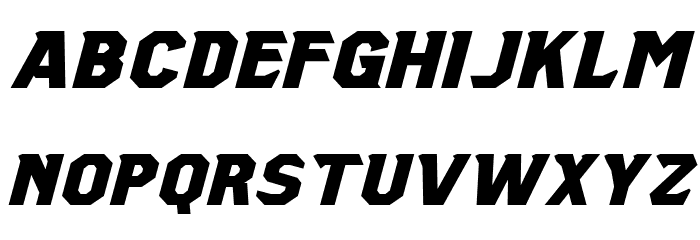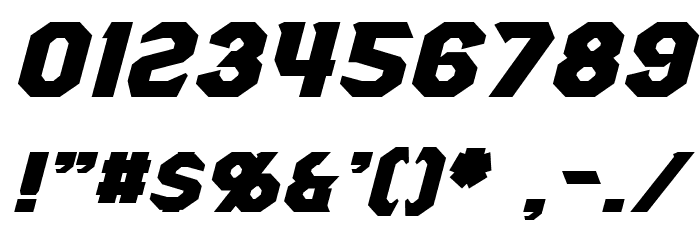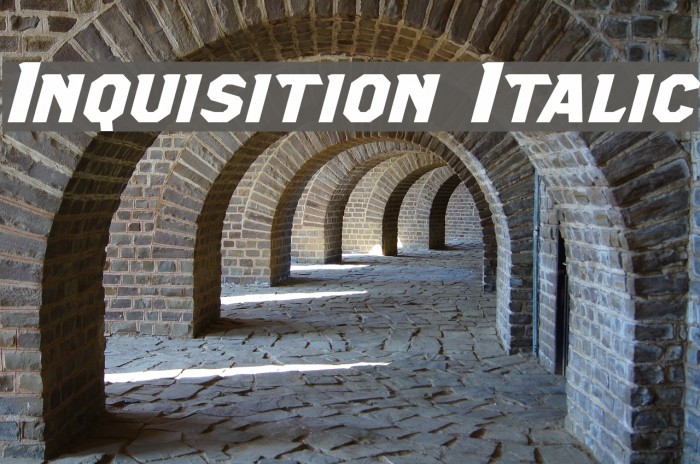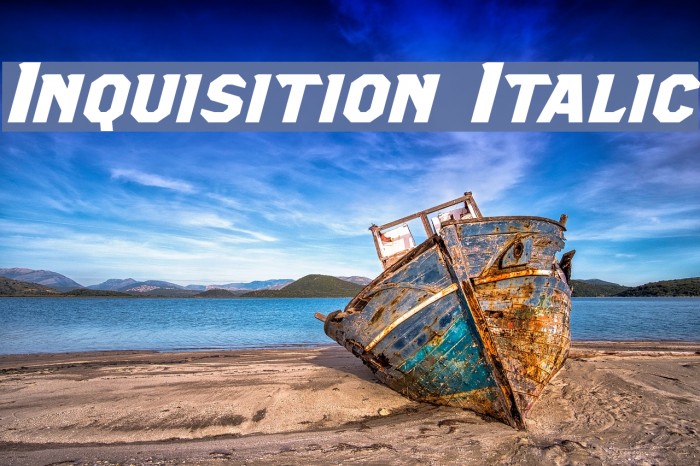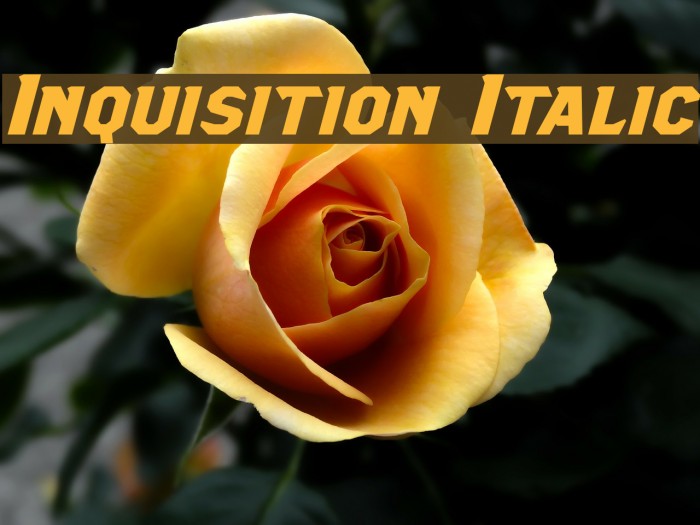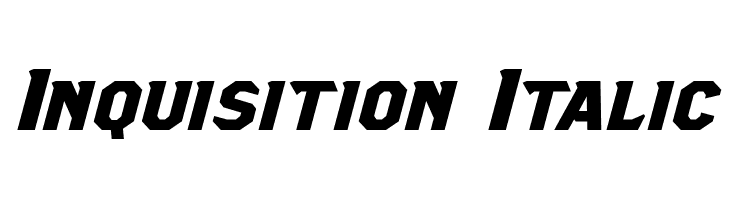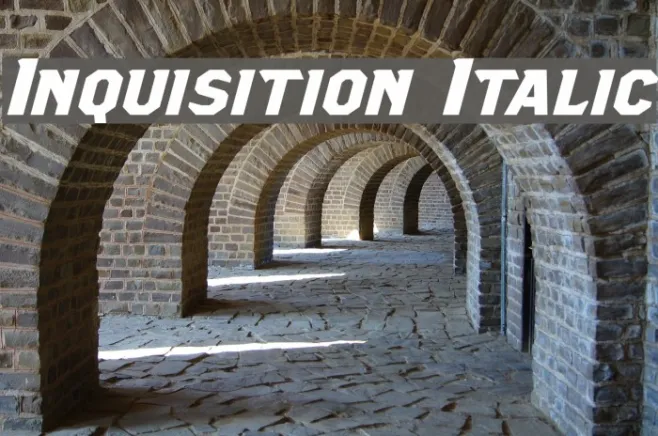
Inquisition Italic Font
This font features a bold and dynamic design with a strong italic slant, giving it a sense of motion and energy. The characters are robust and angular, with sharp edges and a geometric structure that adds a modern and assertive feel. The uppercase and lowercase letters maintain a consistent style, while the numerals and special characters complement the overall aesthetic. The font's boldness and unique style make it suitable for impactful headlines and attention-grabbing designs.
A bold, italic font with angular, geometric characters and a dynamic style.
- Proposed Projects: Ideal for sports branding, dynamic posters, video game titles, and any project requiring a strong, energetic typeface.